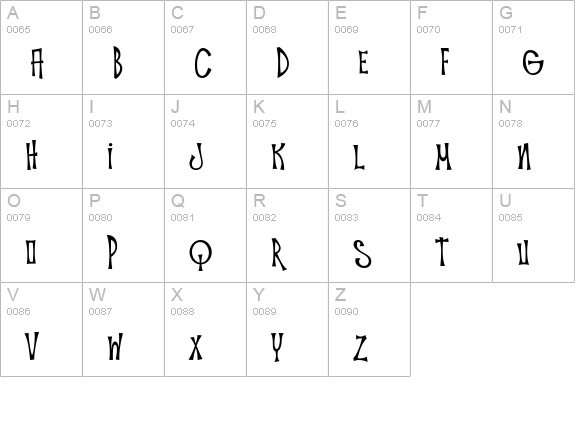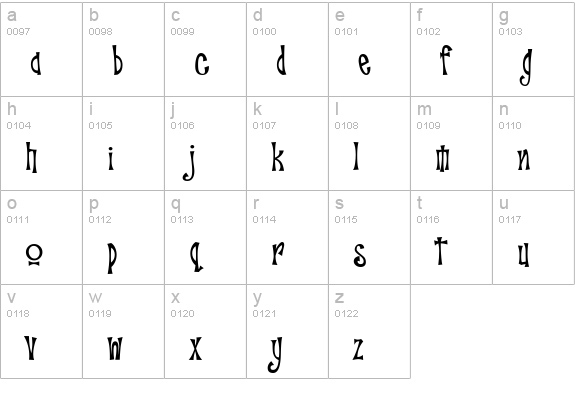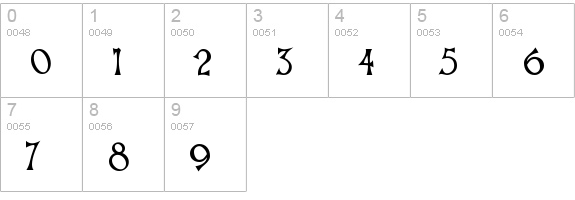
Troutkings BTN Condensed Font Details
Troutkings BTN Condensed is a distinctive, condensed-width variant in the Troutkings typeface family \xE2\x80\x94 well suited to design and typography projects.
Troutkings BTN Condensed font is a modern and stylish typeface that embodies elegance and sophistication. Its sleek and streamlined design is perfect for a variety of design projects, from logos and branding to editorial layouts and website headers. With its condensed form, Troutkings BTN Condensed font is able to fit more text into limited spaces without sacrificing legibility. It is ideal for projects where space is at a premium, allowing you to convey your message efficiently and effectively. Featuring clean lines and balanced proportions, this font exudes a sense of professionalism and refinement. Its versatility makes it suitable for a wide range of applications, whether you're designing a corporate brochure or a wedding invitation. What makes Troutkings BTN Condensed font even more appealing is that it is available for free download at FontsMarket.com. This means that you can use this high-quality font without any cost, making it an ideal choice for budget-conscious designers or anyone who wants to add a touch of elegance to their projects without breaking the bank. So why wait? Enhance your designs with Troutkings BTN Condensed font today. Download it for free at FontsMarket.com and start creating stunning visuals that captivate and inspire.